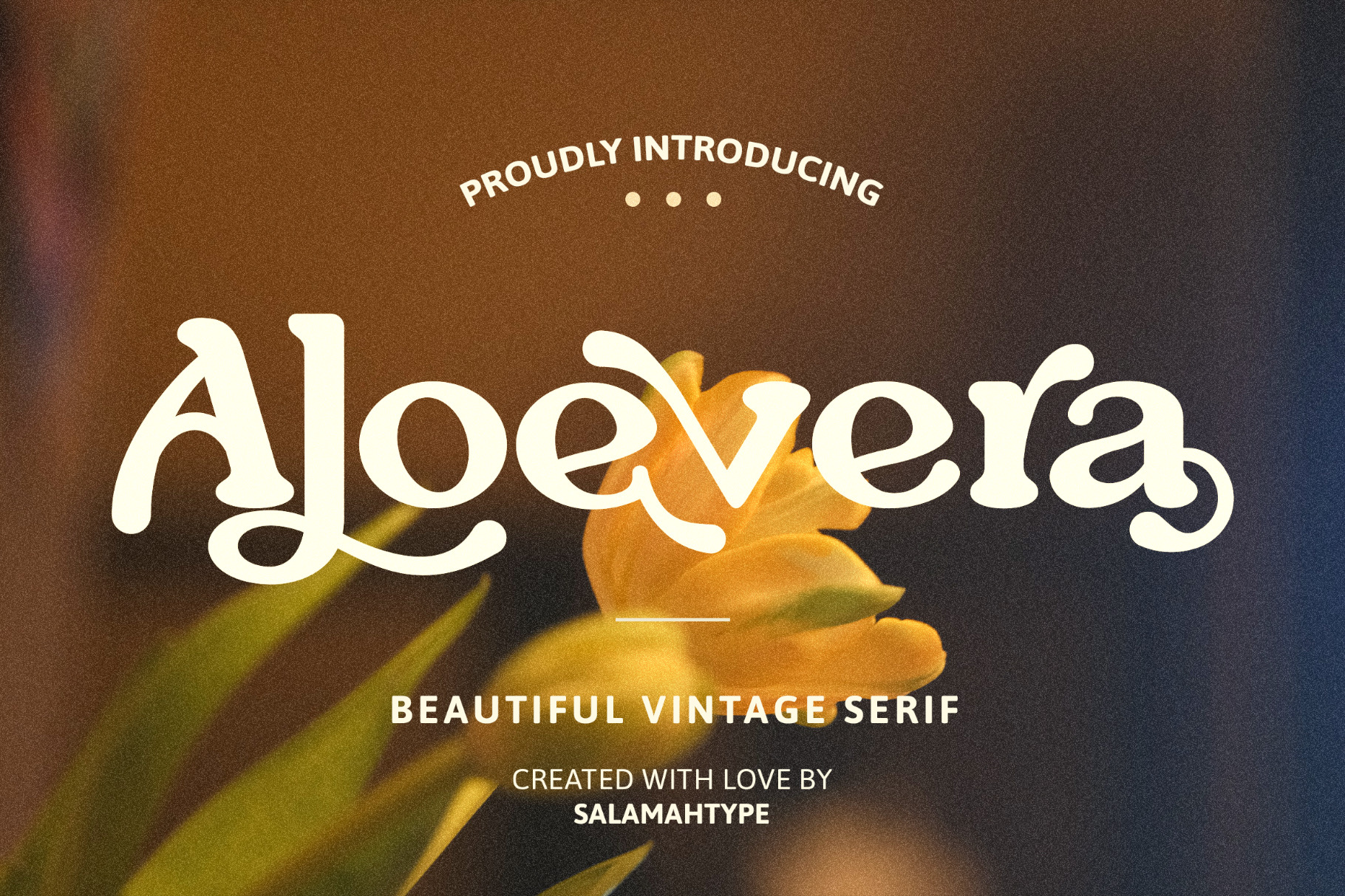
Aloevera - Modern Retro Serif
Aloevera is an elegant, retro and modern serif font with ligatures and alternates. This font is perfect for your branding projects, logos, wedding invitations, merchandise, and more.
- Ligature.
- Alternate.
- Standard and multilingual glyphs.